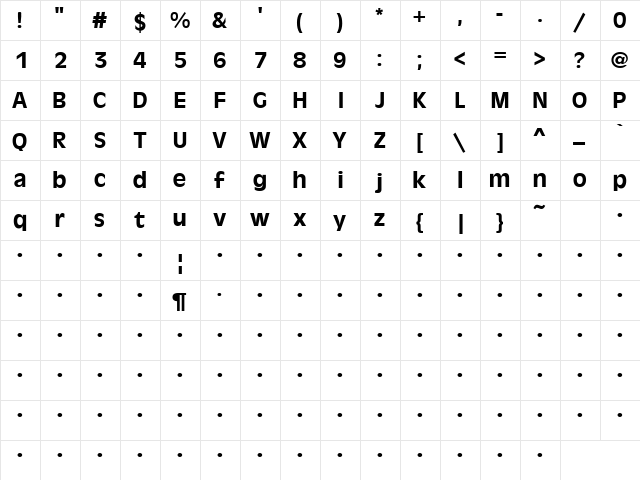
QTAncientOlive Bold
Design Context for QTAncientOlive Typeface
QTAncientOlive takes a measured approach to typography — its balanced proportions and neutral character make it a reliable workhorse for both digital and print work. Its bold stroke weight gives it real presence on the page.